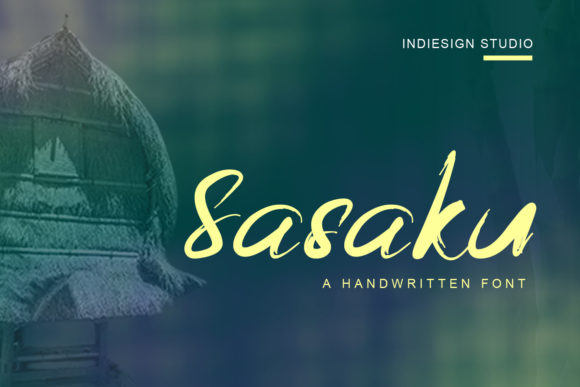
Unleash your creativity and make a lasting impression with Sasaku Font, the ultimate script font for poster design. This exquisite creation by indiesign.std is a breathtaking fusion of elegance and charm, captivating your audience with its enchanting strokes and graceful curves. Sasaku is not just a font; it's an artistic masterpiece that transforms words into captivating visual expressions.
Sasaku's versatility knows no bounds. Whether you're designing product packaging that demands attention, creating a branding project that exudes sophistication, crafting magazine covers that leave a lasting impact, or engaging your audience on social media, Sasaku is your perfect partner. Its timeless beauty adds a touch of magic to wedding invitations, personalizing this special occasion with a font that speaks of love and joy. Unleash your imagination and let Sasaku elevate your designs beyond the ordinary.
With Sasaku, you'll discover a world of endless possibilities. Its expressive nature lends itself effortlessly to expressing words with captivating flair, making every message a visual masterpiece. Let your creativity soar as you experiment with Sasaku's enchanting strokes, crafting headlines that dance off the page and body text that flows with graceful elegance. Dive into a world of visual delight as Sasaku transforms your designs into captivating works of art.
Don't settle for ordinary fonts that blend into the background. Embrace the power of Sasaku and let your designs shine with captivating brilliance. Its unique character shines through, adding a touch of individuality to your creations. Make a statement that resonates with your audience, leaving them spellbound by the beauty and elegance of Sasaku Font.
Sasaku is more than just a digital tool; it's an expression of your creativity, a reflection of your unique style. Let your imagination run wild as you explore the boundless possibilities that Sasaku offers. With this exquisite script font, you'll create designs that captivate, inspire, and leave an unforgettable impression. Embrace the magic of Sasaku and embark on a creative journey that will transform your designs into works of art.